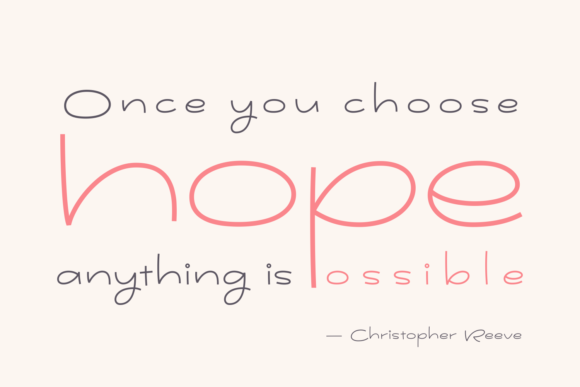
Youthing October Fourteen Font
About Youthing October Fourteen Font
The Youthing October Fourteen is a beautiful script typeface. It has a great readability with a fun style which makes it perfect for making a fun, yet striking design.